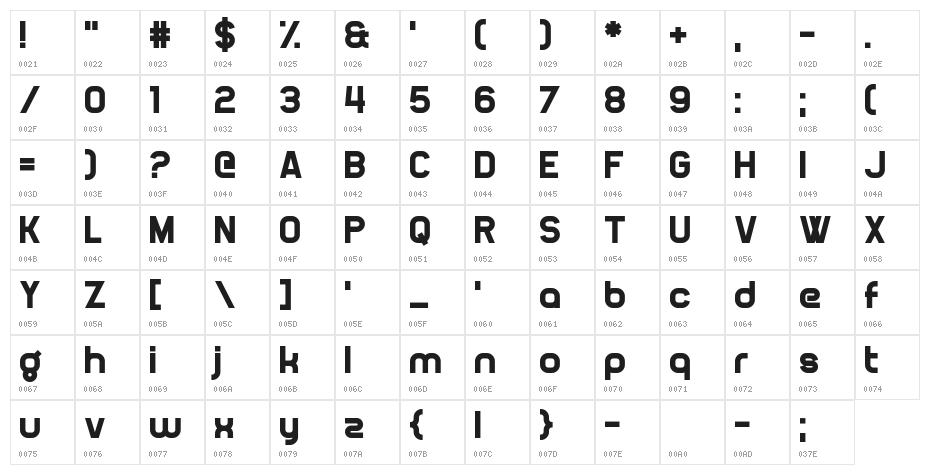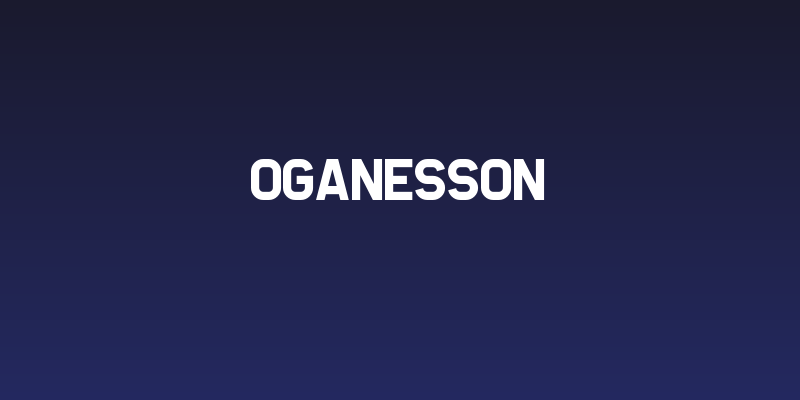
Oganesson Font
| Anwendungsfall | Headlines, Logos, Branding |
| Vorgeschlagene Projekte | Ideal for branding, advertising, headlines, and digital media where a strong and modern presence is desired. |